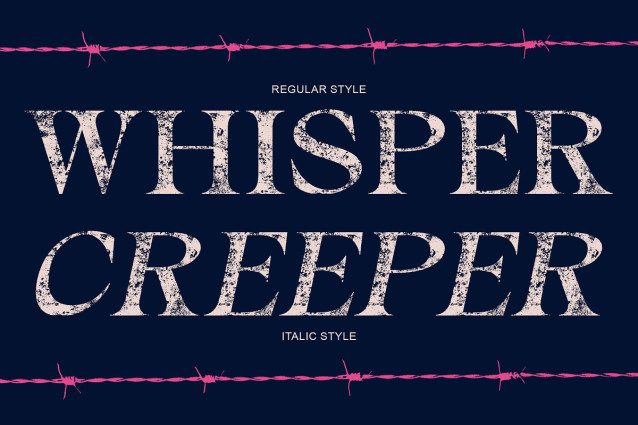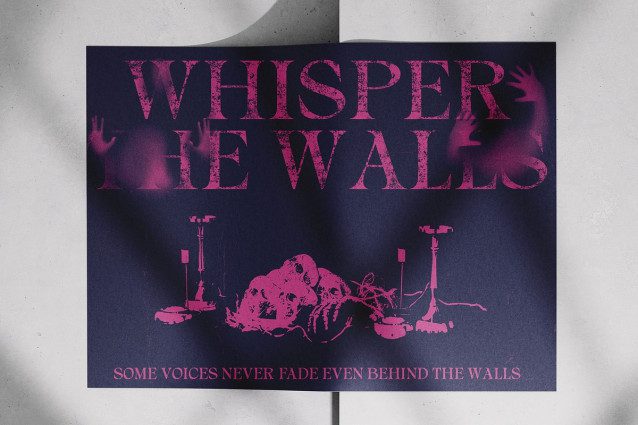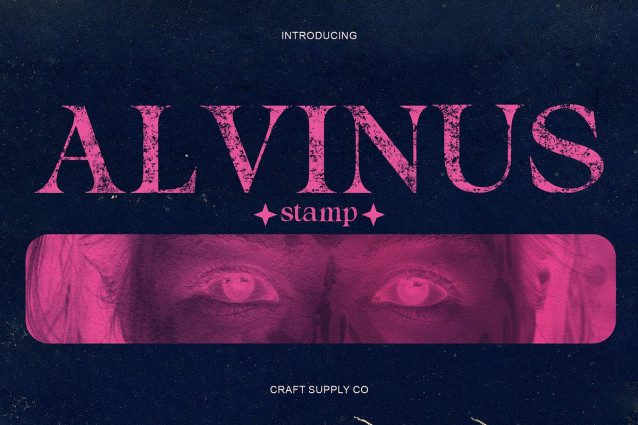
Alvinus Stamp Font
Alvinus Stamp Font – Classic Serif Font with Stamp Effect: Bold Tradition with Vintage Texture Classic Elegance with a Modern Edge This is a classic serif font that fuses bold structure with clean, contemporary lines. Its timeless serif forms bring elegance and authority, while the modern proportions create a refined and stylish impression suitable for today’s design landscape.
Stamp Texture for Authentic Character The stamp effect introduces a vintage charm that enhances this fonts bold appearance. Each letter carries a subtle textured imperfection, adding warmth, depth, and a handcrafted feel that gives every word a distinctive personality and expressive visual rhythm.
Versatile for Modern and Retro Designs Whether used for luxury branding, editorials, posters, or creative campaigns, this font adapts beautifully. It’s ideal for projects that seek to balance modern sophistication with nostalgic appeal, creating designs that are both elegant and full of character.
Bold Refinement for Lasting Impressions This font stands out through its powerful serifs and handcrafted texture, capturing the essence of heritage and artistry. Perfect for designers who want to evoke confidence, refinement, and vintage authenticity in every composition.